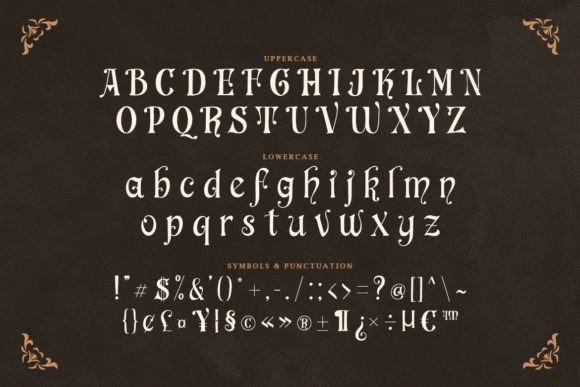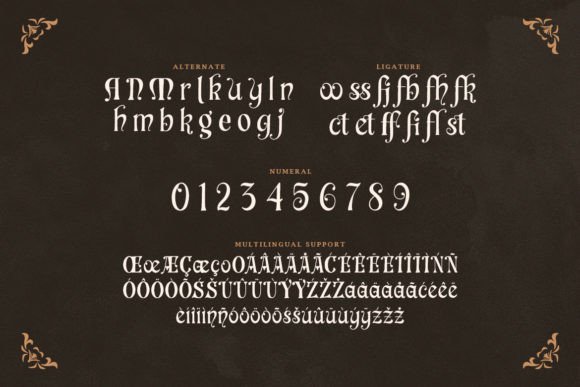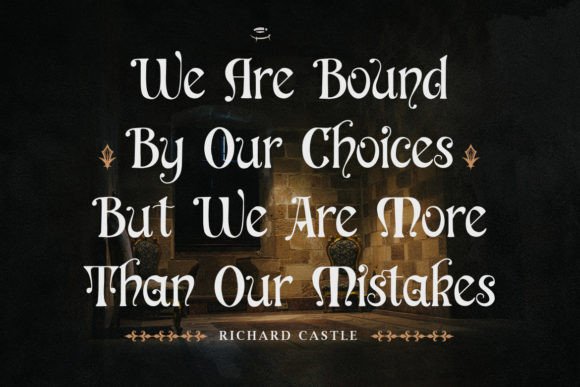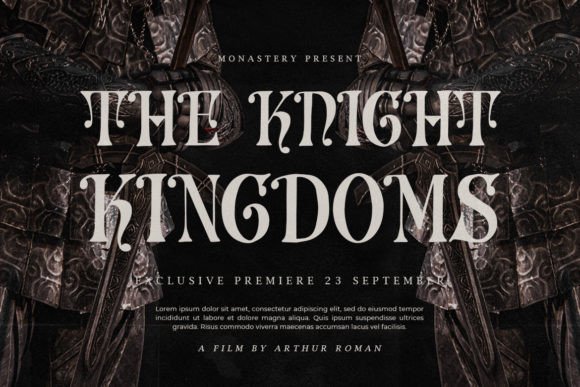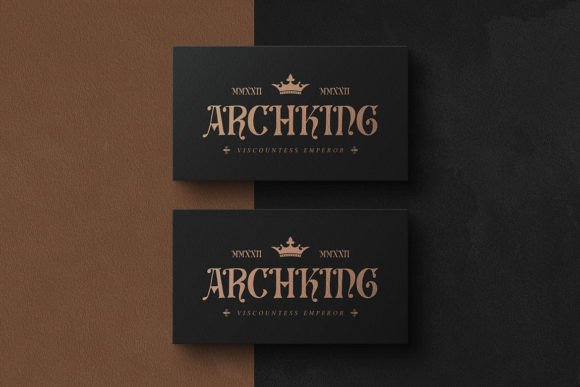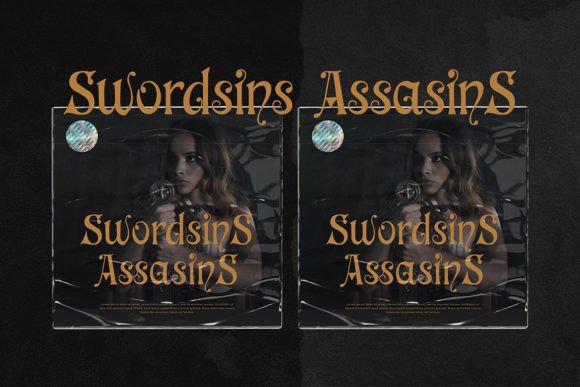
Introduction to Monastery Font
Have you ever found yourself browsing through old manuscripts, captivated by the intricate lettering and ornate details that seem to transport you to a bygone era? That’s exactly the kind of magic that the Monastery Font embodies. With its unique, medieval vibe, this font is the perfect design resource for any historical-themed project.
As a designer, you’re always on the lookout for high-quality fonts that can elevate your creative project to the next level. The Monastery Font delivers, with its elegant, Gothic-inspired lettering that’s perfect for adding a touch of sophistication to your designs. And the best part? You can download it for free, complete with a transparent background that makes it easy to use in any design scenario.
Key Features of Monastery Font
- Unique and elegant design style, perfect for creative projects and design resources.
- High-quality font with precise details and smooth lines, suitable for both personal and commercial use.
- High-resolution font, designed for use at 300 DPI or higher, making it perfect for printing and digital displays.
- Monastery Font is a highly versatile design resource, suitable for a wide range of creative projects, from typography to graphic design.
Honest Review: Monastery Font
As a designer, I’m always on the lookout for high-quality design resources to elevate my creative projects. Recently, I stumbled upon the Monastery Font, and I’m excited to share my honest review with you.
- ✨ The Monastery Font boasts a beautiful, elegant design that’s perfect for any project that needs a touch of sophistication.
However, I do have to mention a few limitations:
- ⚠️ Some users may find the font’s design a bit too ornate, which can be overwhelming in certain contexts.
Overall, I’m impressed with the Monastery Font’s high quality and versatility. While it may have some limitations, it’s an excellent addition to any designer’s toolkit. Whether you’re working on a wedding invitation, a luxury brand campaign, or any other creative project, the Monastery Font is definitely worth considering.
The Monastery Font is a high-quality design resource that offers a unique, elegant aesthetic. It’s available for free download and features a transparent background, making it versatile for a variety of creative projects.
Tips for Getting the Most Out of Monastery Font
To get the most out of the Monastery Font, use it in combination with other design elements to create a cohesive look. Experiment with different font sizes, colors, and arrangements to achieve the desired effect.
The Monastery Font is ideal for use in wedding invitations, graduation announcements, and other formal events. It’s also great for use in branding and marketing materials, such as business cards and brochures.